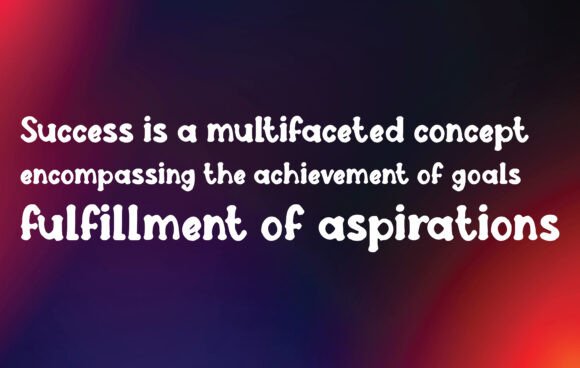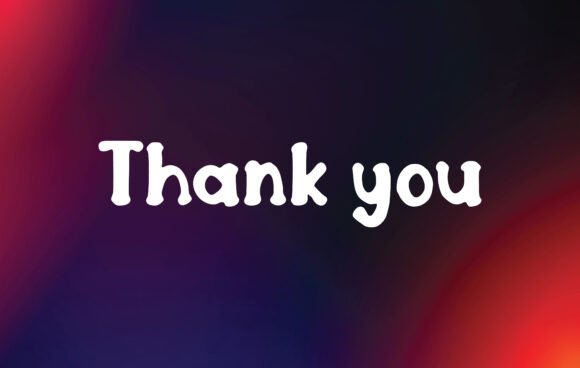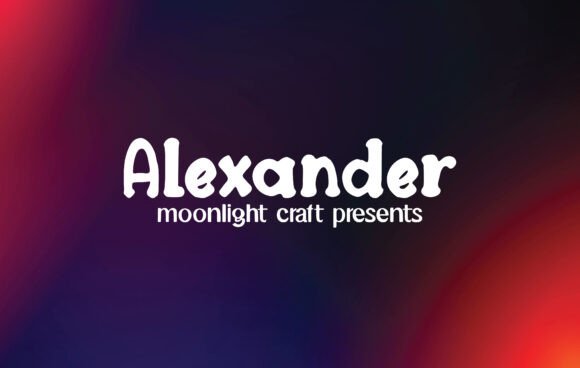
Discover the Beauty of Alexander Font: A Creative’s Best Friend
I’ll never forget the time I was working on a branding project for a new coffee shop. I had a clear vision of what I wanted to achieve, but something was missing – the perfect font. I scoured the internet, tried out dozens of options, but none seemed quite right. That was until I stumbled upon Alexander Font. It was like a breath of fresh air! The elegant, handwritten strokes and beautiful letterforms instantly captured the essence of the coffee shop’s personality. In this article, I’ll share with you why Alexander Font is a game-changer for designers, crafters, and creative hobbyists.
An Honest Review of Alexander Font
- ✨ Elegant and beautiful handwritten design
- ✅ Highly versatile and adaptable to various design projects
- 💫 Perfect for creating eye-catching logos, branding, and quotes
- 🎨 Great for adding a personal touch to your designs
While Alexander Font is an excellent choice, there are a few things to keep in mind:
- 🤔 Limited availability of stylistic alternates, which might limit its use in certain projects
- ⚠️ May not be suitable for very small font sizes due to its intricate design
The Backstory of Alexander Font
Alexander Font was designed by a talented typographer who wanted to create a font that would evoke a sense of elegance and sophistication. The font was inspired by classic calligraphy and handwriting, with a modern twist. The designer aimed to create a font that would be versatile and adaptable to various design projects, from logos and branding to quotes and social media graphics.
Q: What is Alexander Font best used for?
A: Alexander Font is perfect for creating eye-catching logos, branding, and quotes. Its elegant and beautiful handwritten design makes it ideal for designs that require a personal touch.
Q: Is Alexander Font suitable for body text?
A: While Alexander Font is a beautiful font, it’s not recommended for body text due to its intricate design. It’s best used for headings, titles, and short paragraphs.